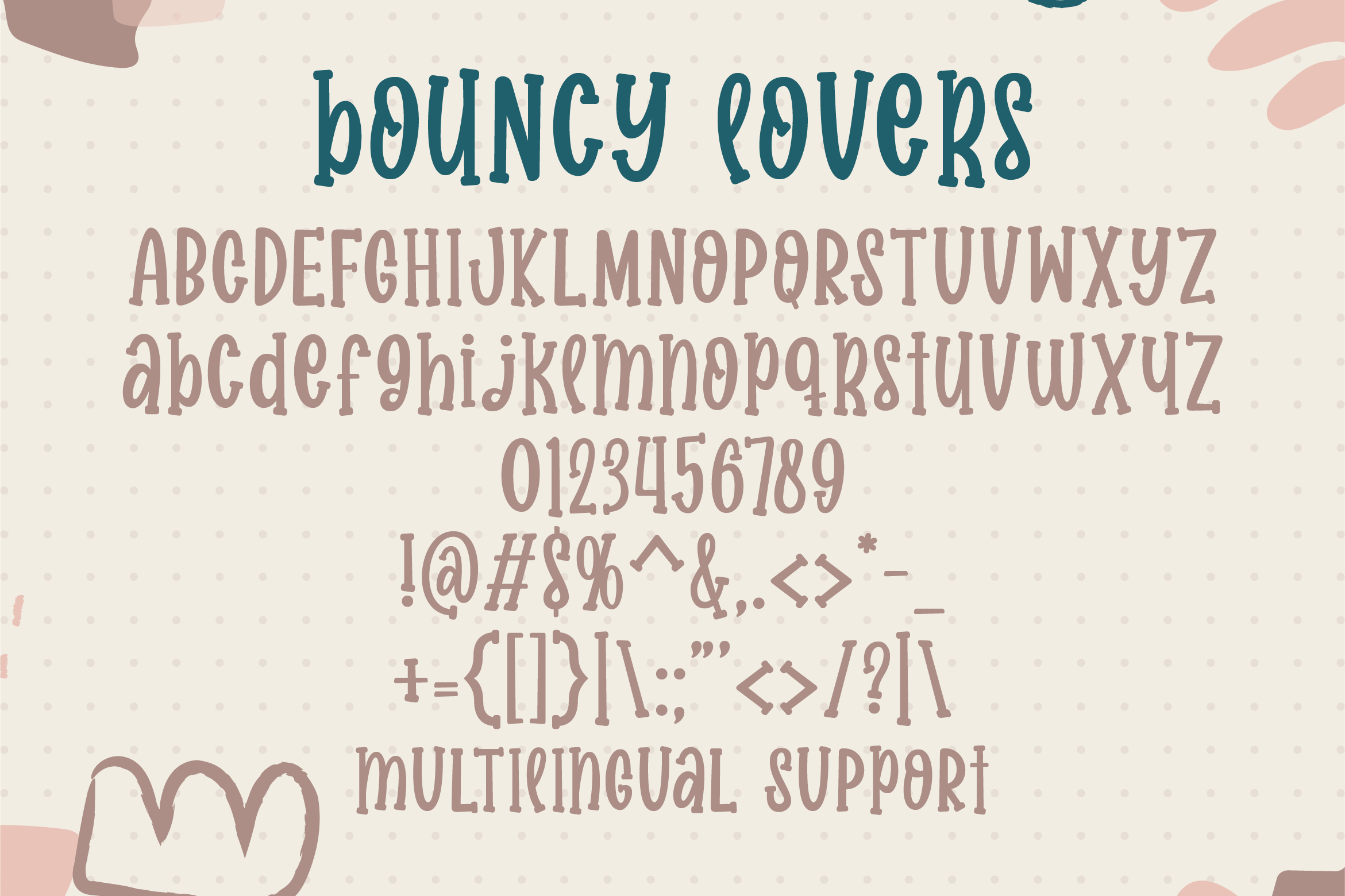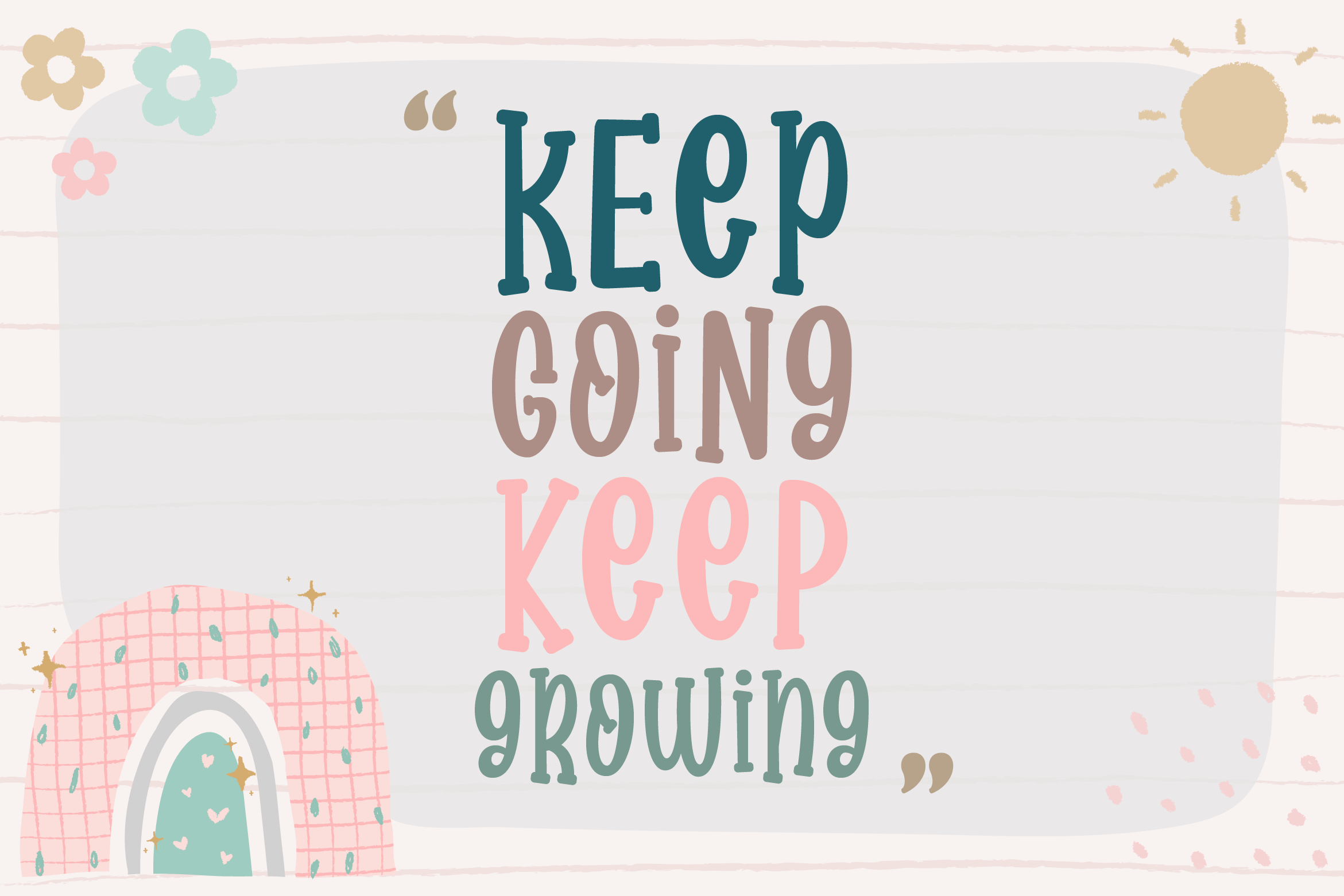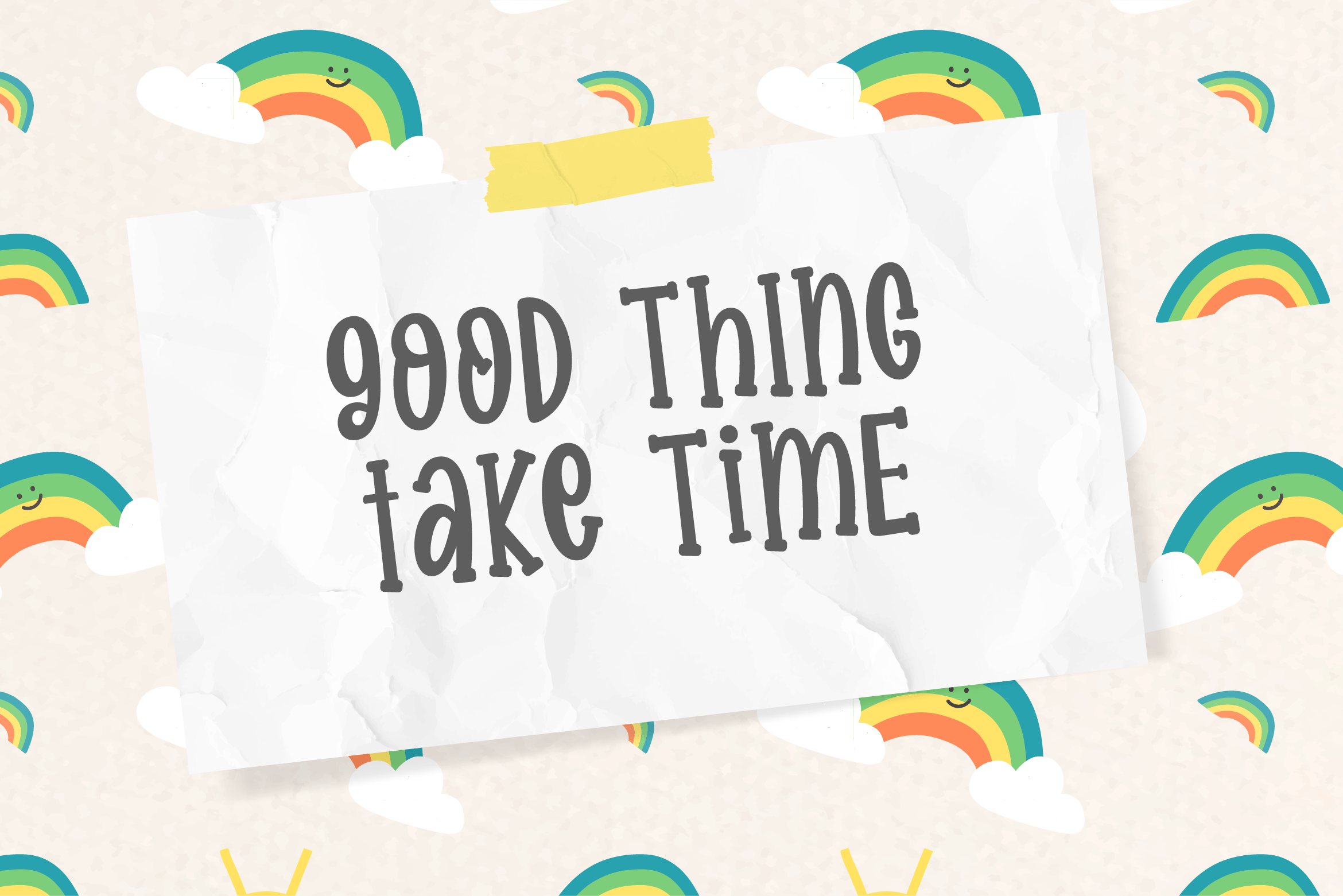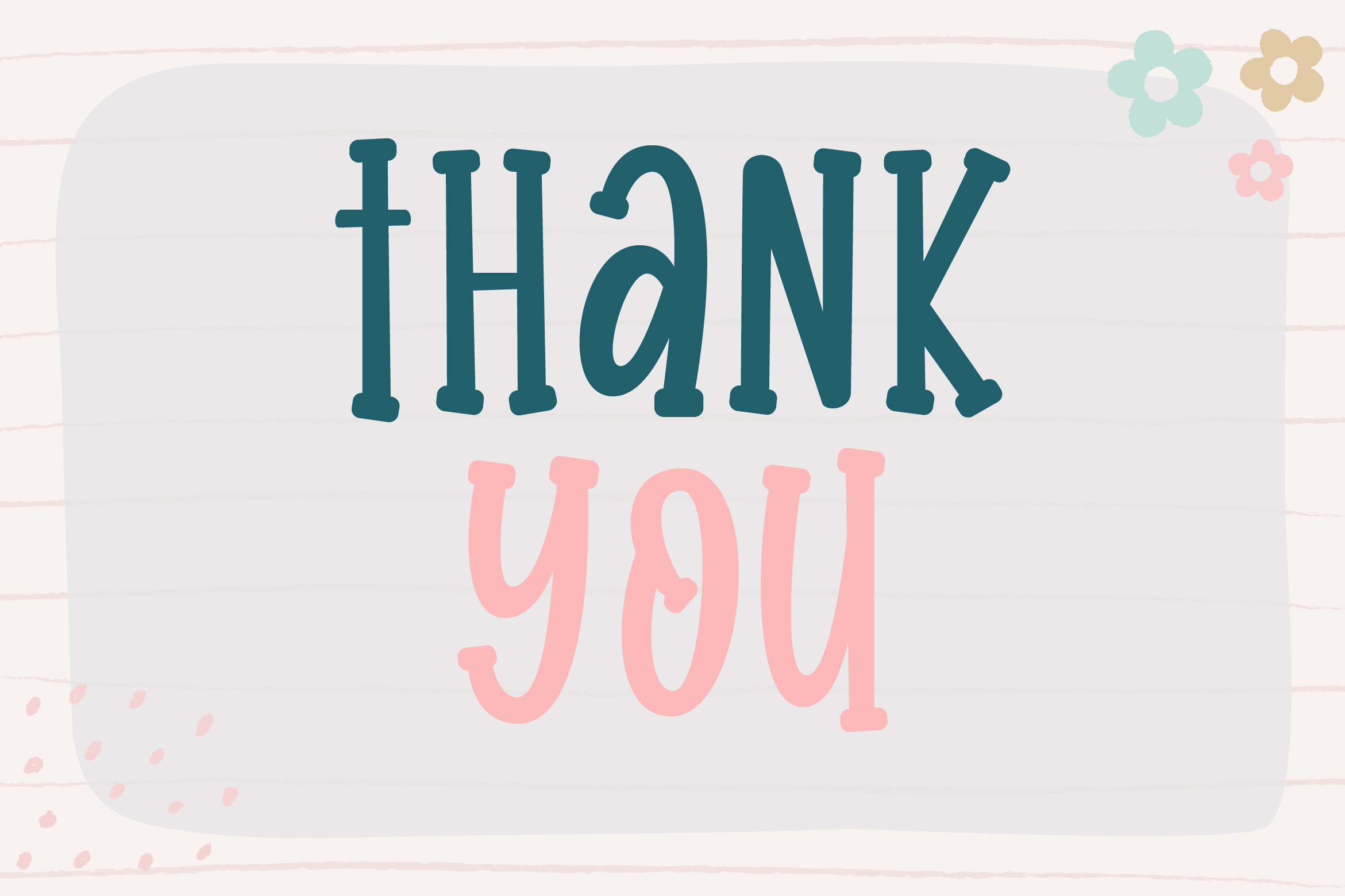
Bouncy Lovers Font
Bouncy Lovers Display Font
This is cute display font. It is perfect for children-themed designs, especially when combined with bright colors.